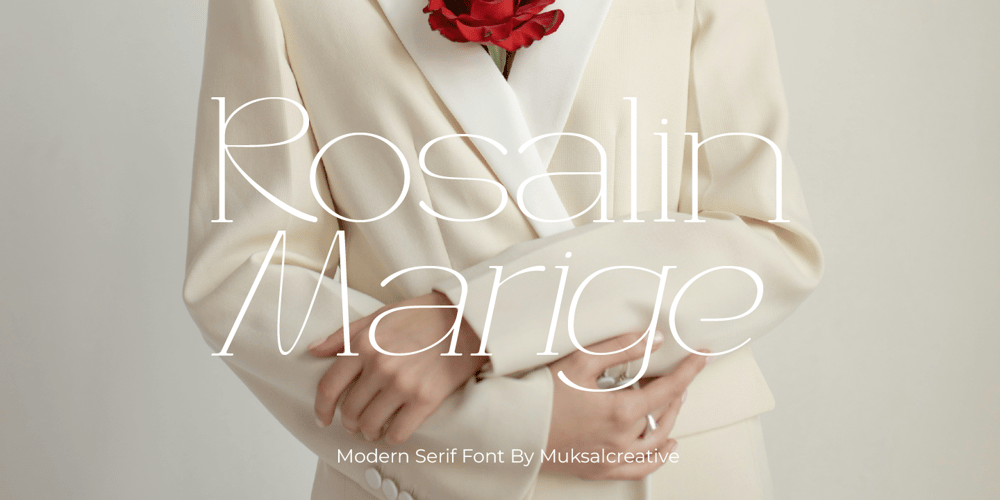
Rosalin Marige
Rosalin Marige font
Rosalin Marige Font Family was designed by Muksal Mina and published by Muksal Creatives. Rosalin Marige contains 2 styles and family package options. Rosaline Marige is a modern-style font that blends serif elements with a contemporary touch. With its clean and elegant design, this font offers two main styles: regular and italic. Each letter in the Rosaline Marige font is meticulously crafted to convey a professional and modern impression in any design. The sophistication of this serif font makes it suitable for various design projects, including modern-themed branding logos. With its clarity and readability, Rosaline Marige is the perfect choice for enhancing the appearance and impact of any design.